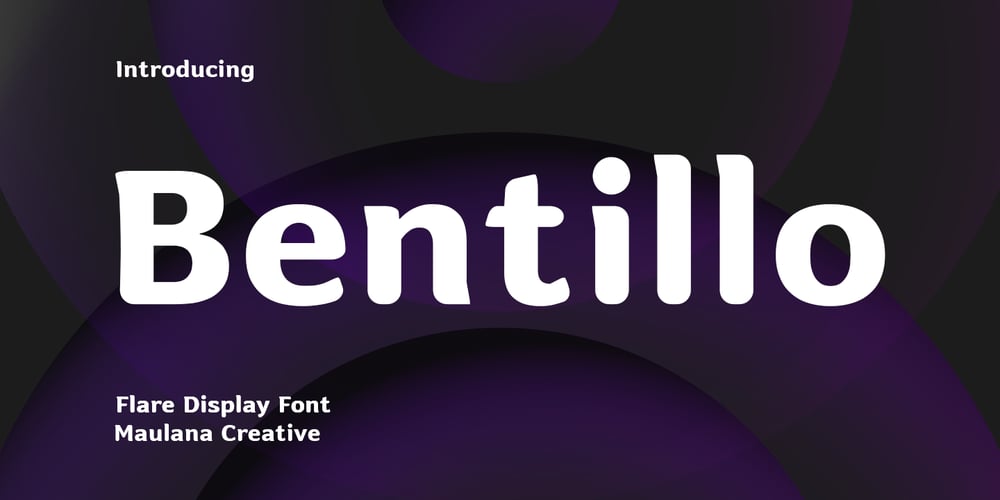
MC Bentillo Font Family was designed by Gilang Maulana and published by Maulana Creative. MC Bentillo contains 1 styles and family package options. Bentillo is a modern Decorative flared sans serif Display font. Bold stroke, fun character with a bit of ligatures and alternates. To give you an extra creative work. Bentillo font support multilingual more than 100+ language. This font is good for logo design, Social media, Movie Titles, Books Titles, a short text even a long text letter and good for your secondary text font with script or serif. Make a stunning work with Bentillo font. Cheers, Maulana Creative